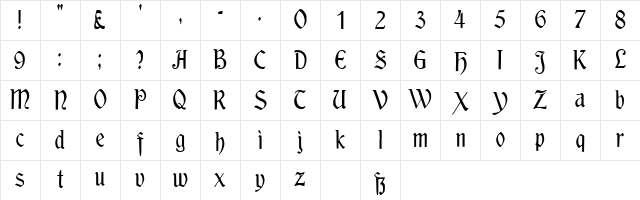
Moderna Regular
Designer: PJL
Design Context for Moderna
Moderna is a composed and adaptable typeface that performs quietly and consistently across a wide range of design contexts.